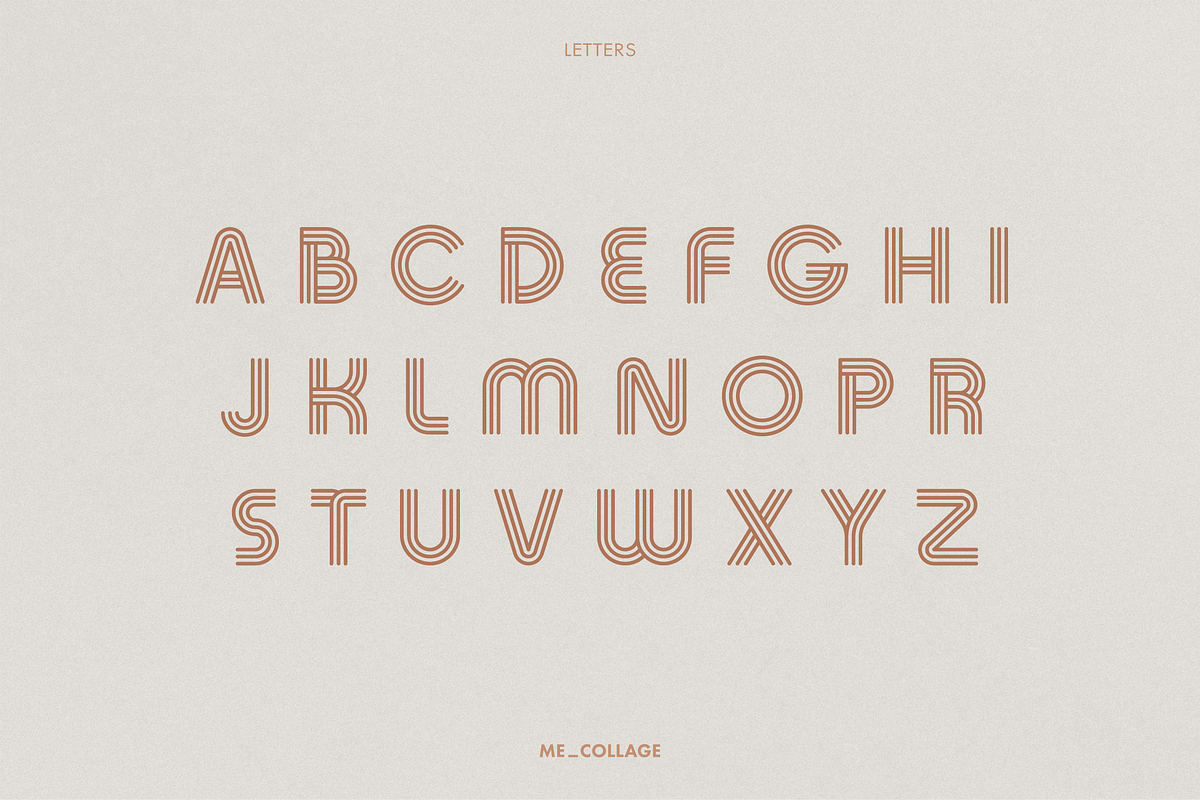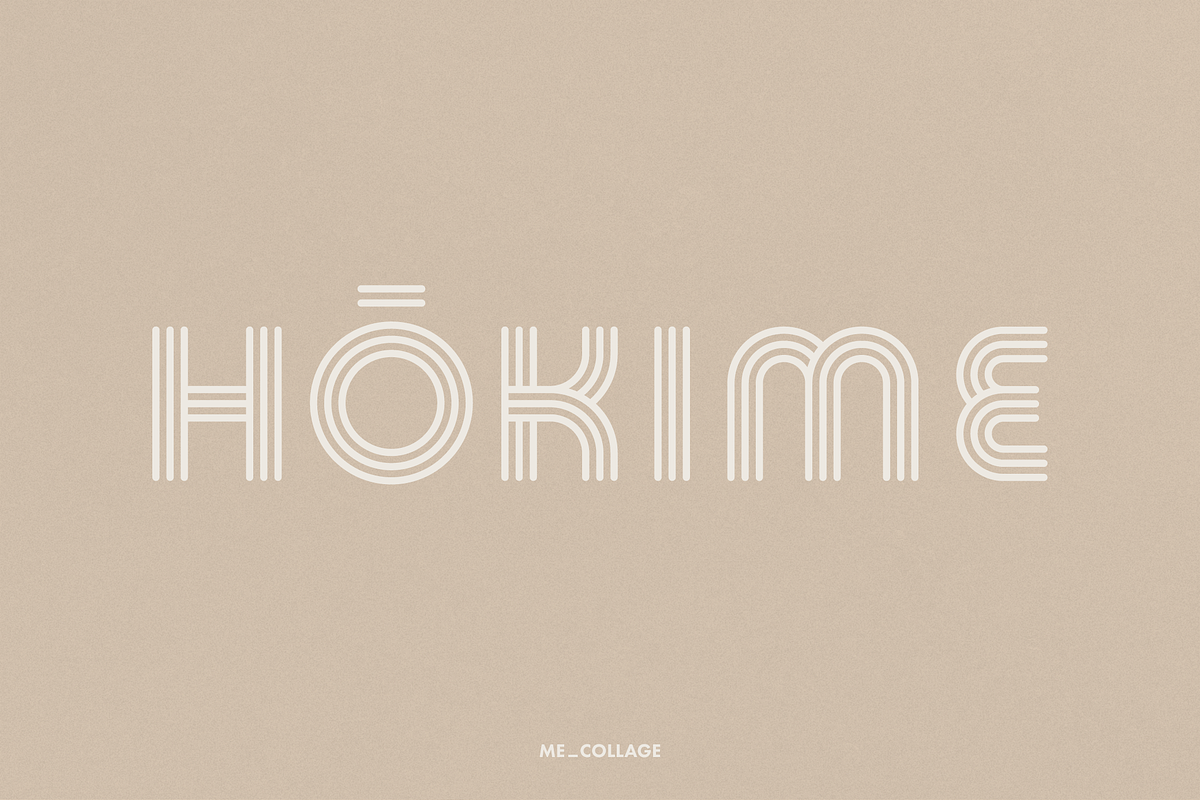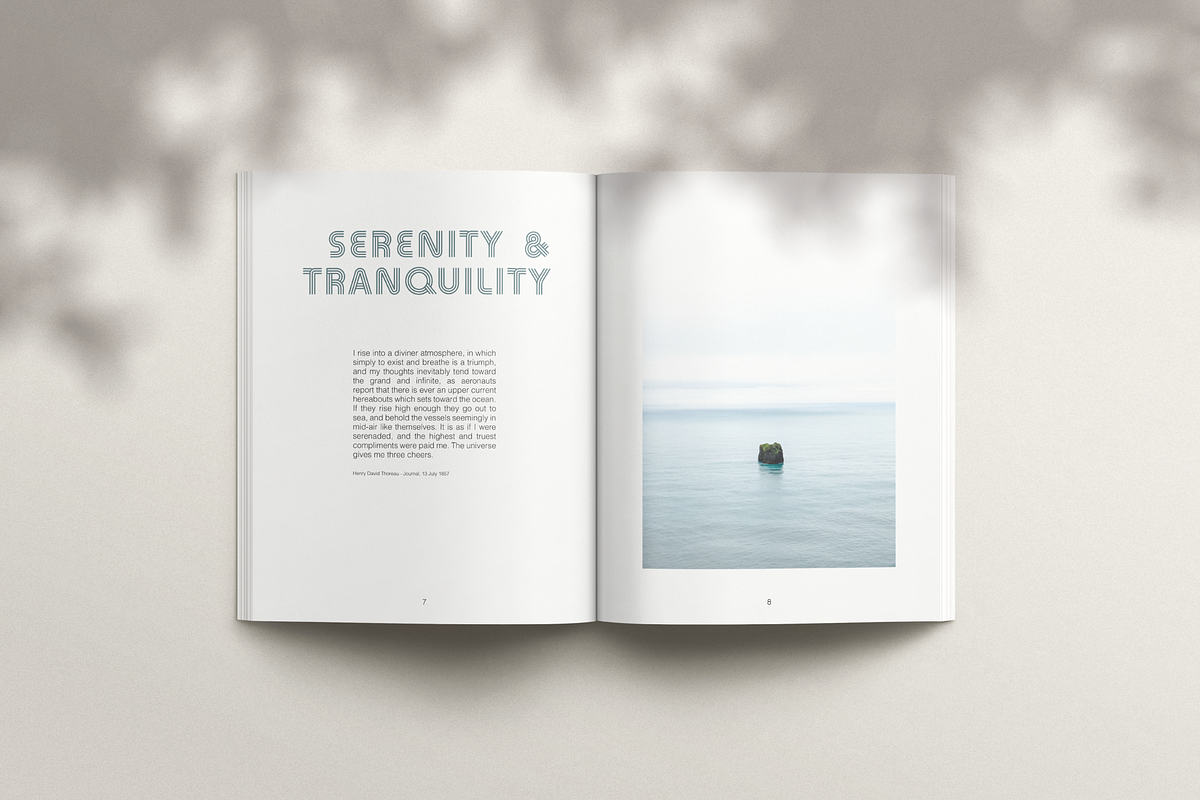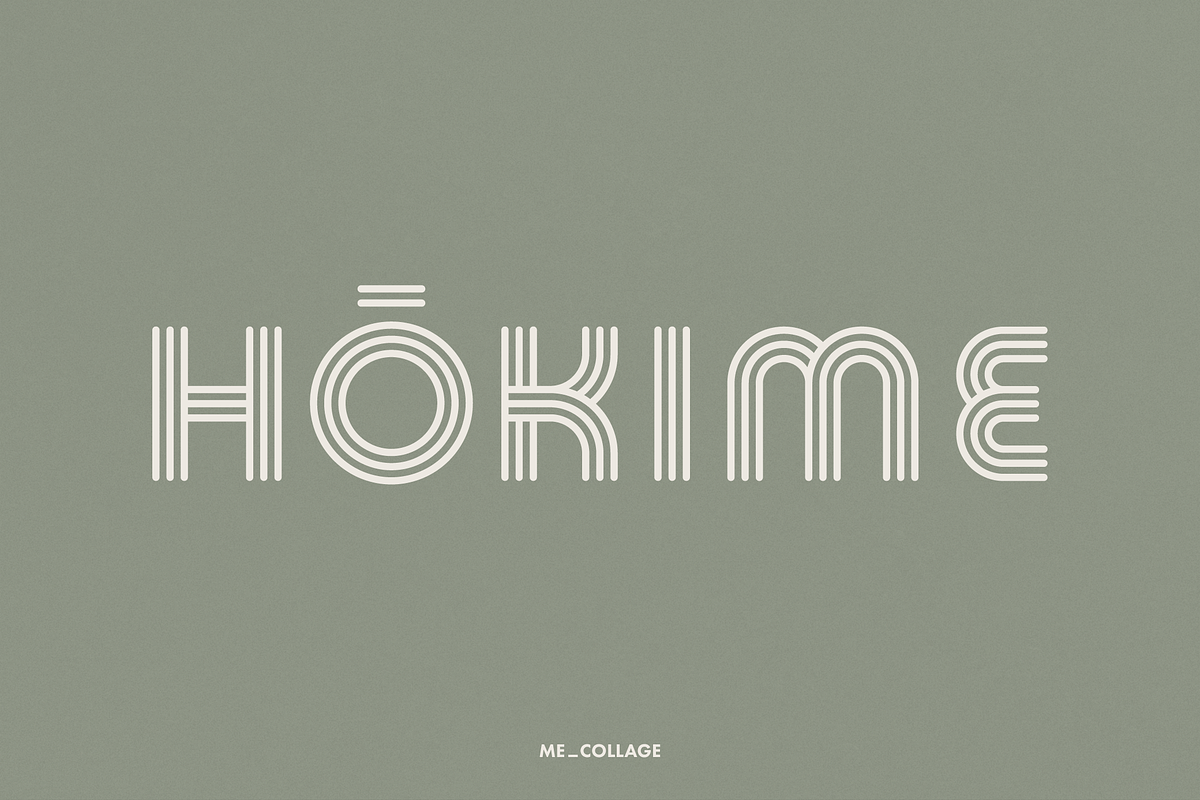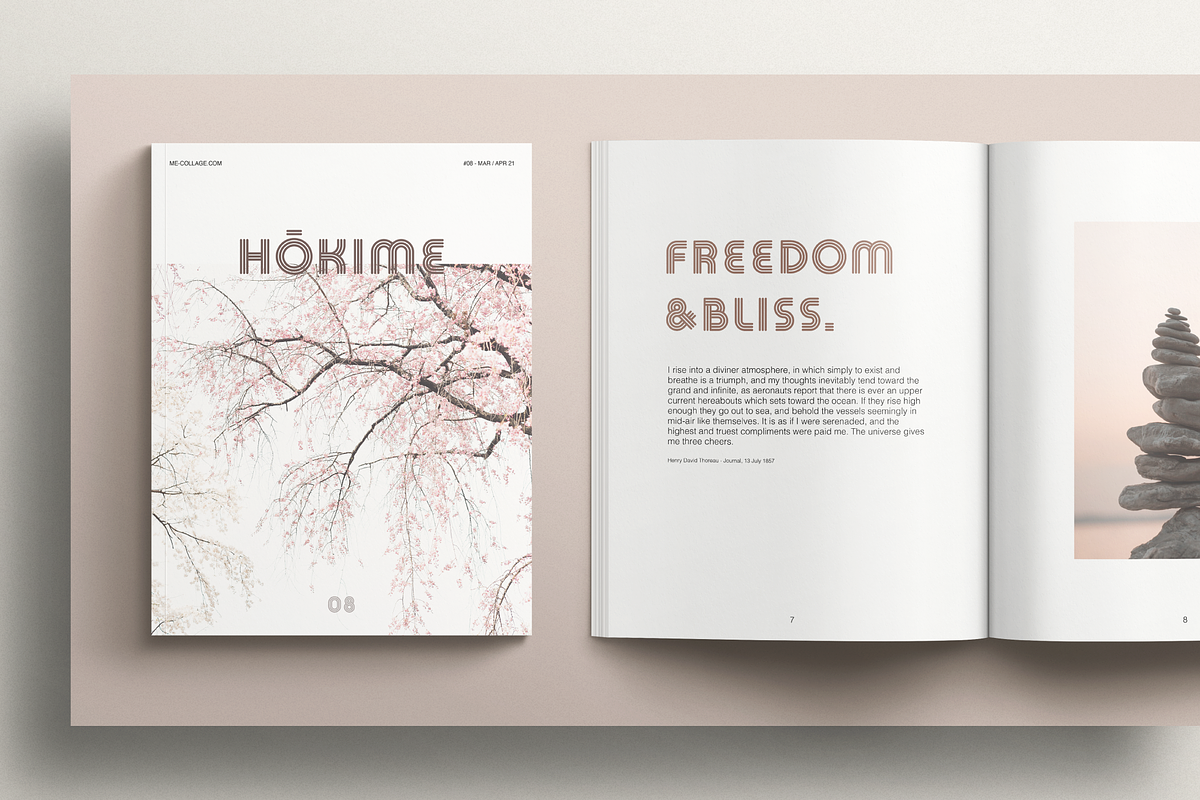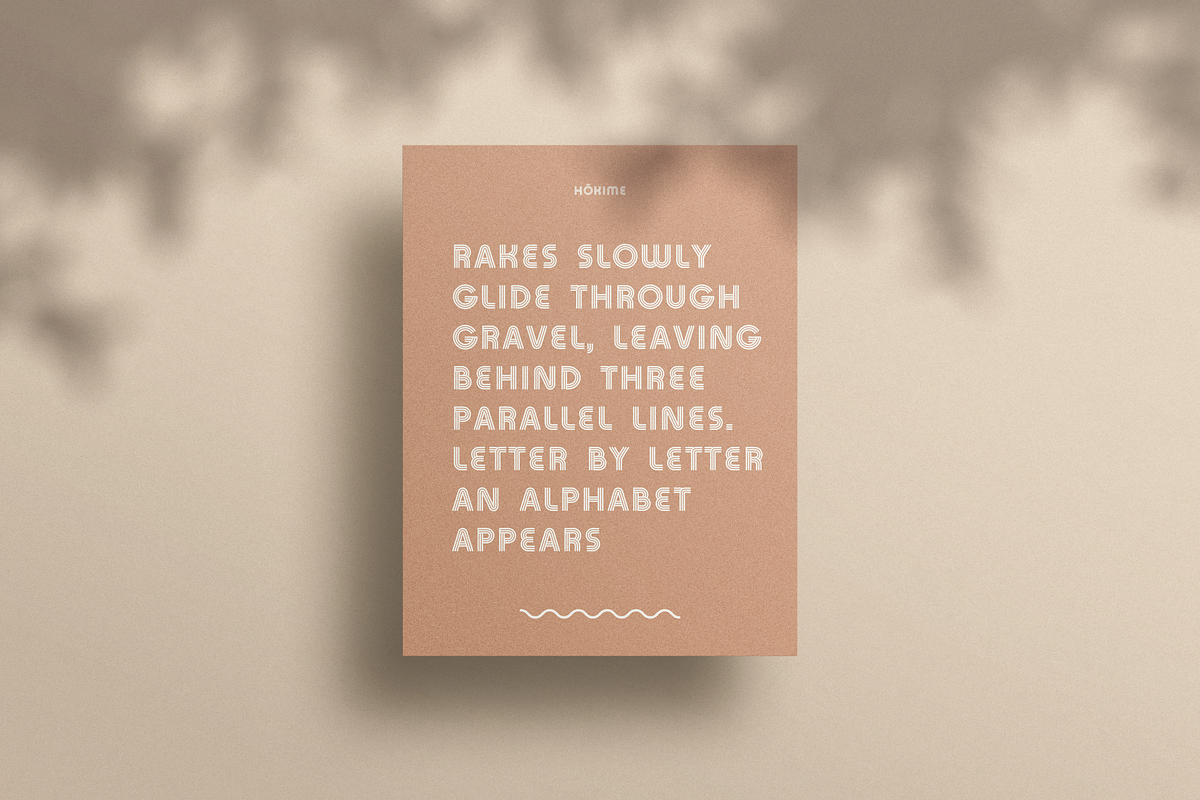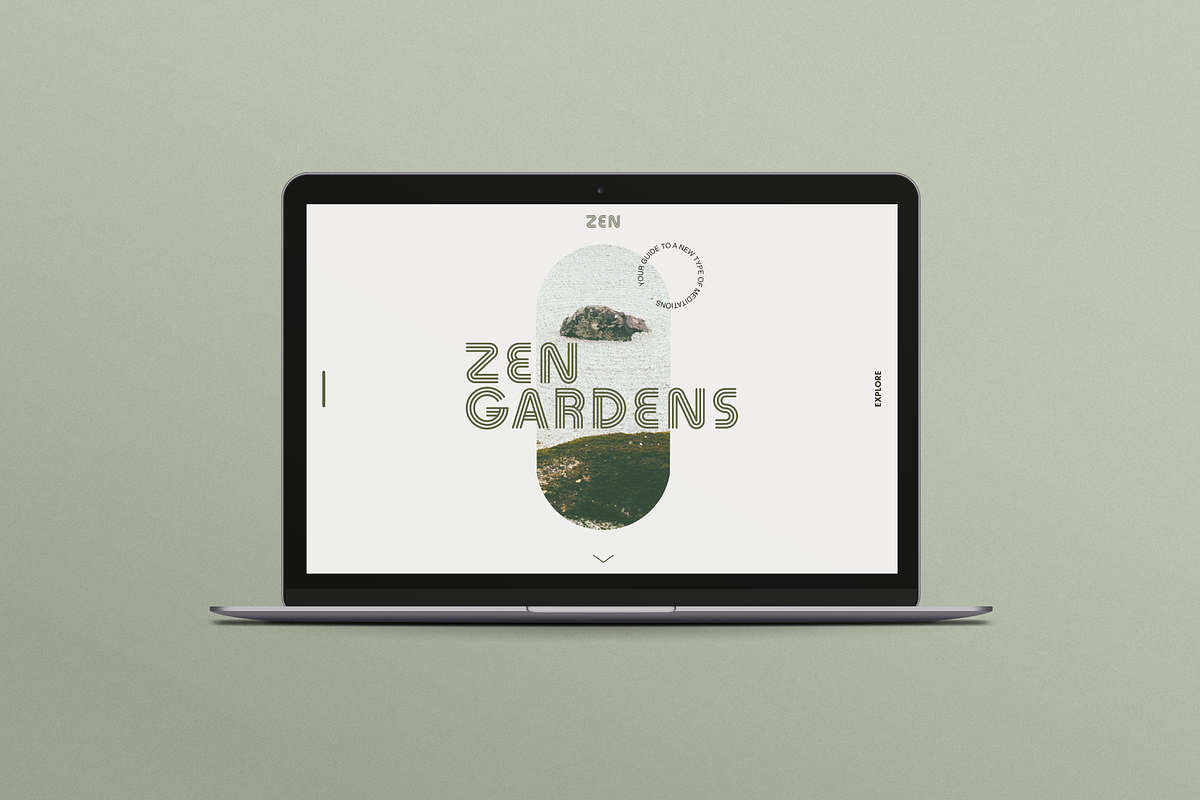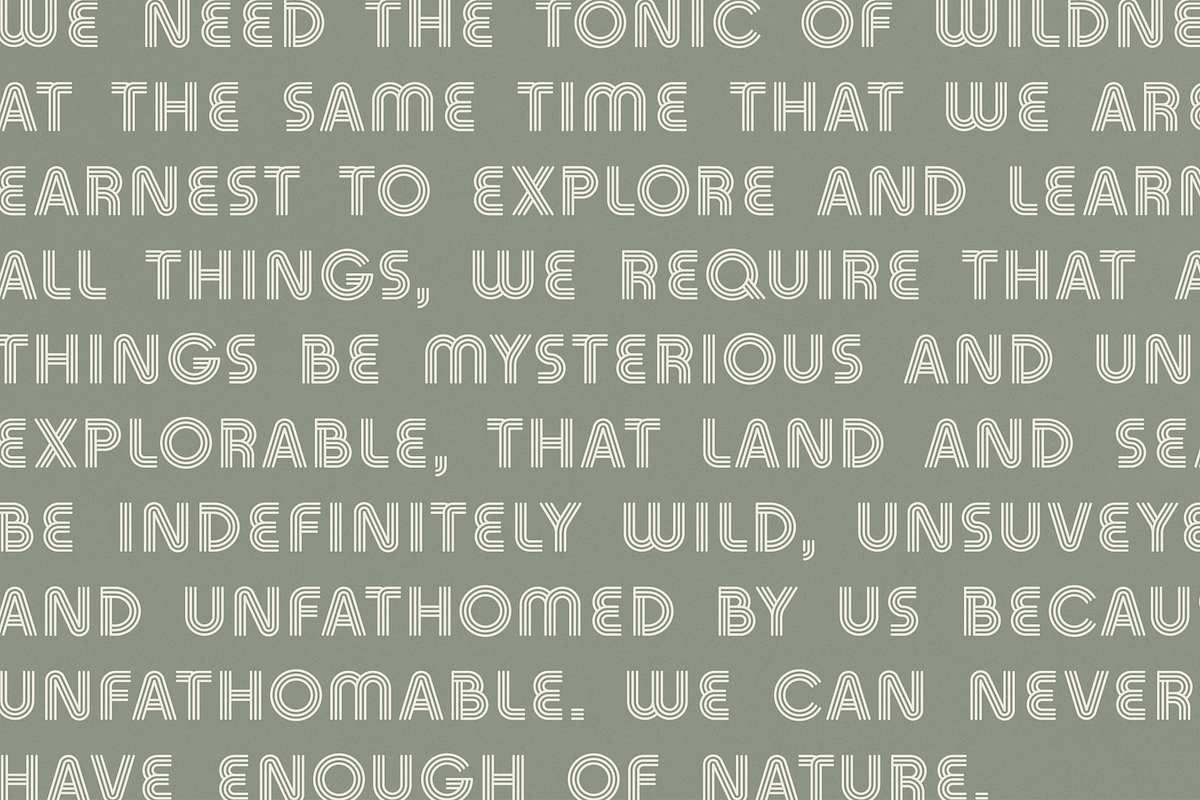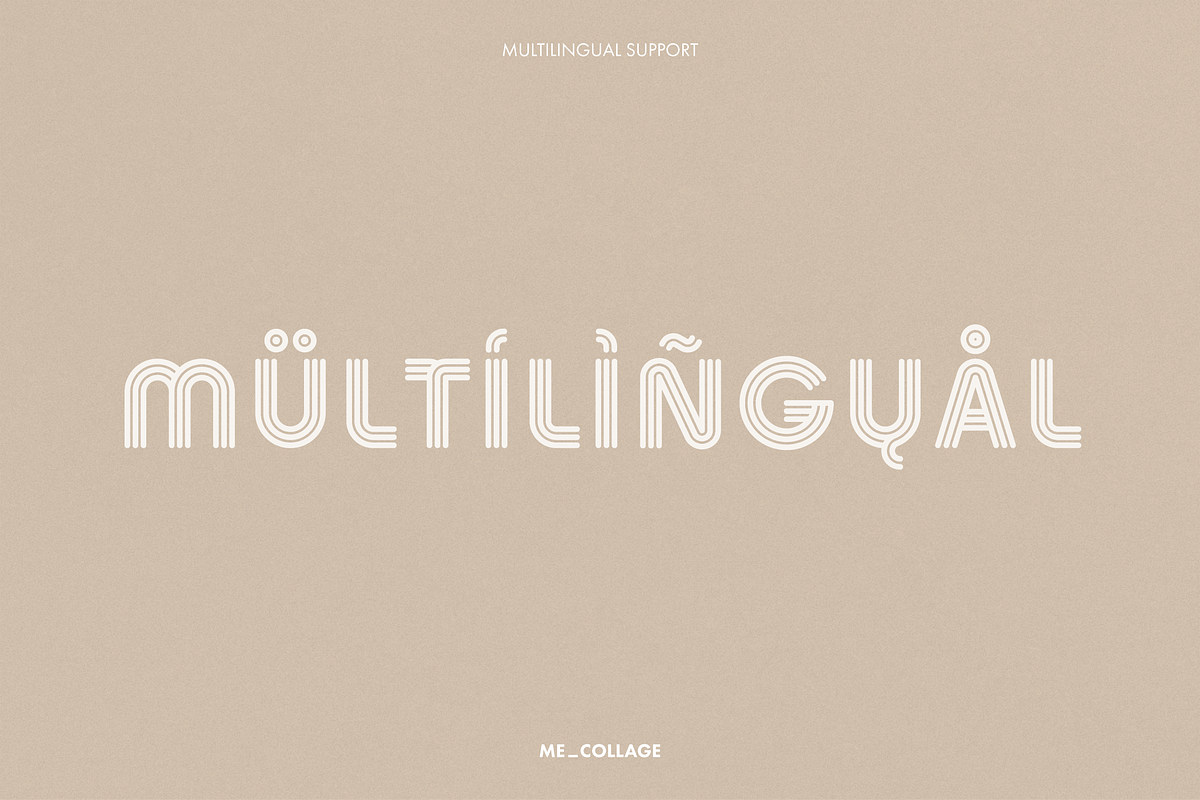
HOKIME - Zen Font With a Retro Vibe
HOKIME 3 — It's 5 a.m.. You're in the zen garden. You can sense the sunrise light. You have a three teeth rake in your hand. The Rakes slowly glide through gravel, leaving behind three parallel lines. Arc by arc, letter by letter, an alphabet appears. This is how this font was created — inspired by Hōkime, a technique used in zen gardens.
THIS ENTIRE FONT IS CAPITALIZED
- Capitalized Letters